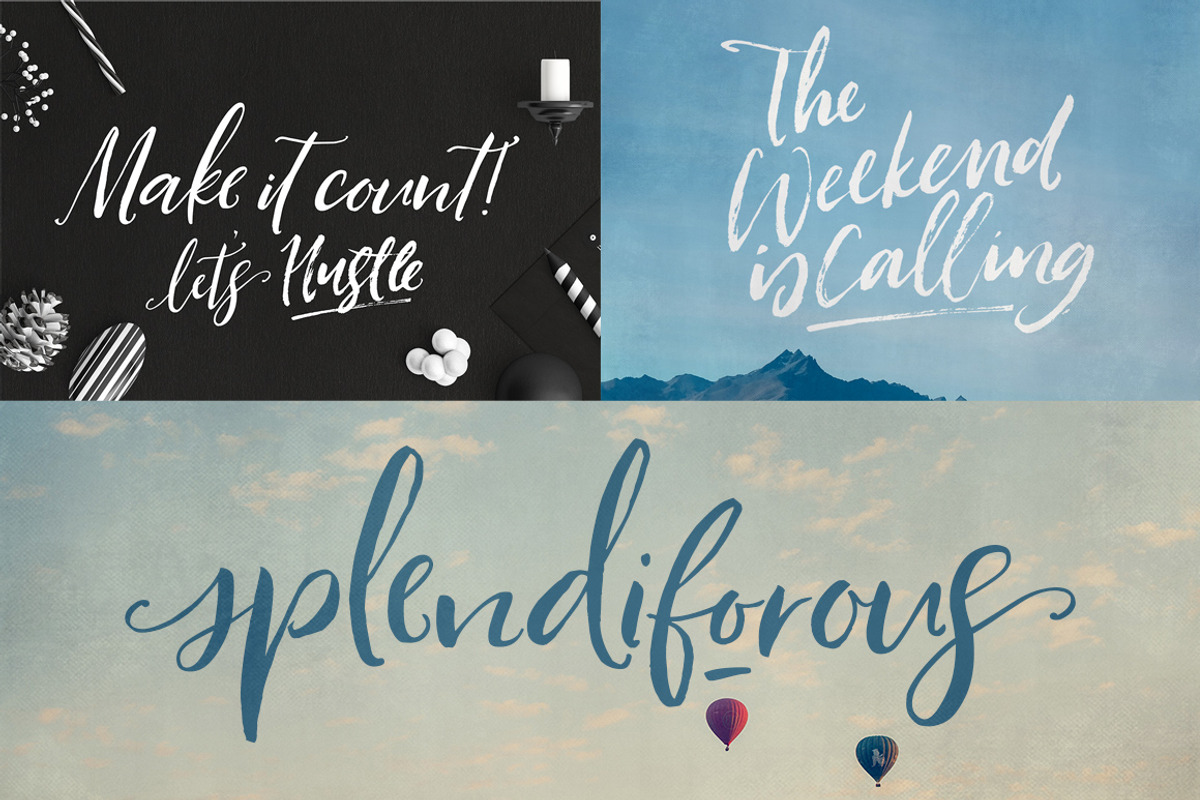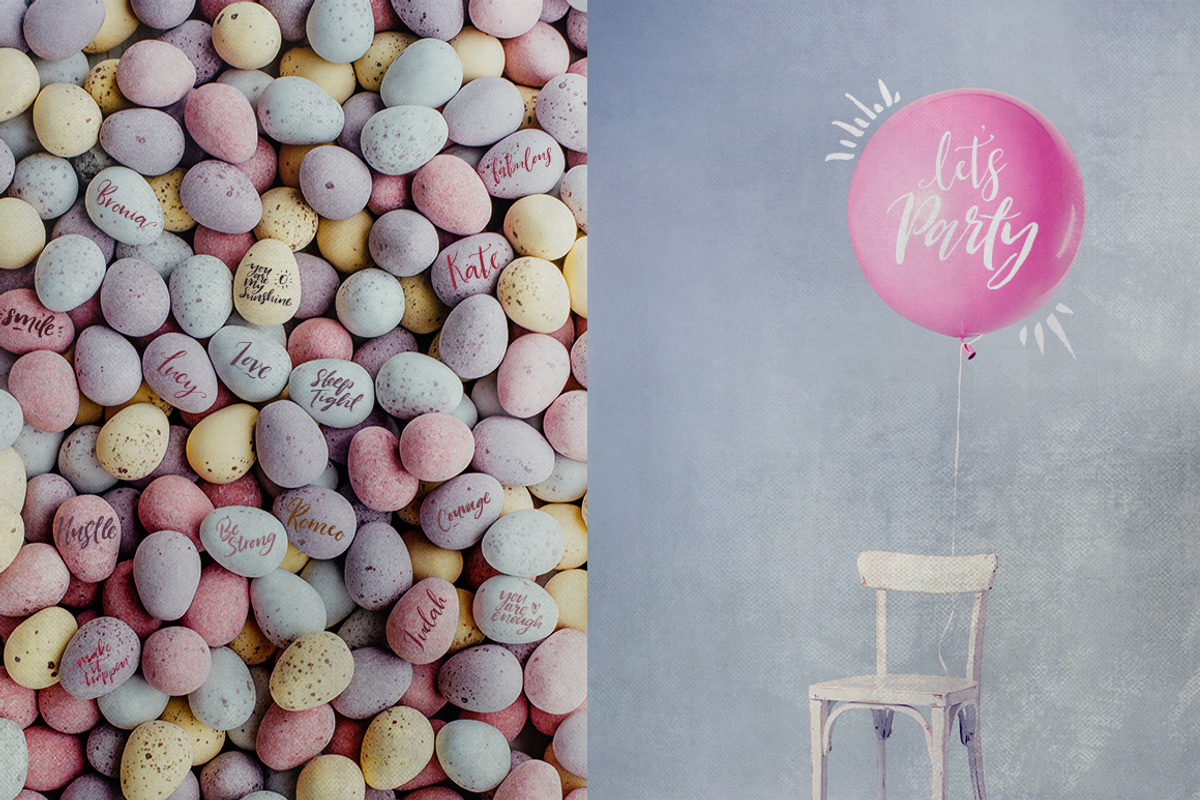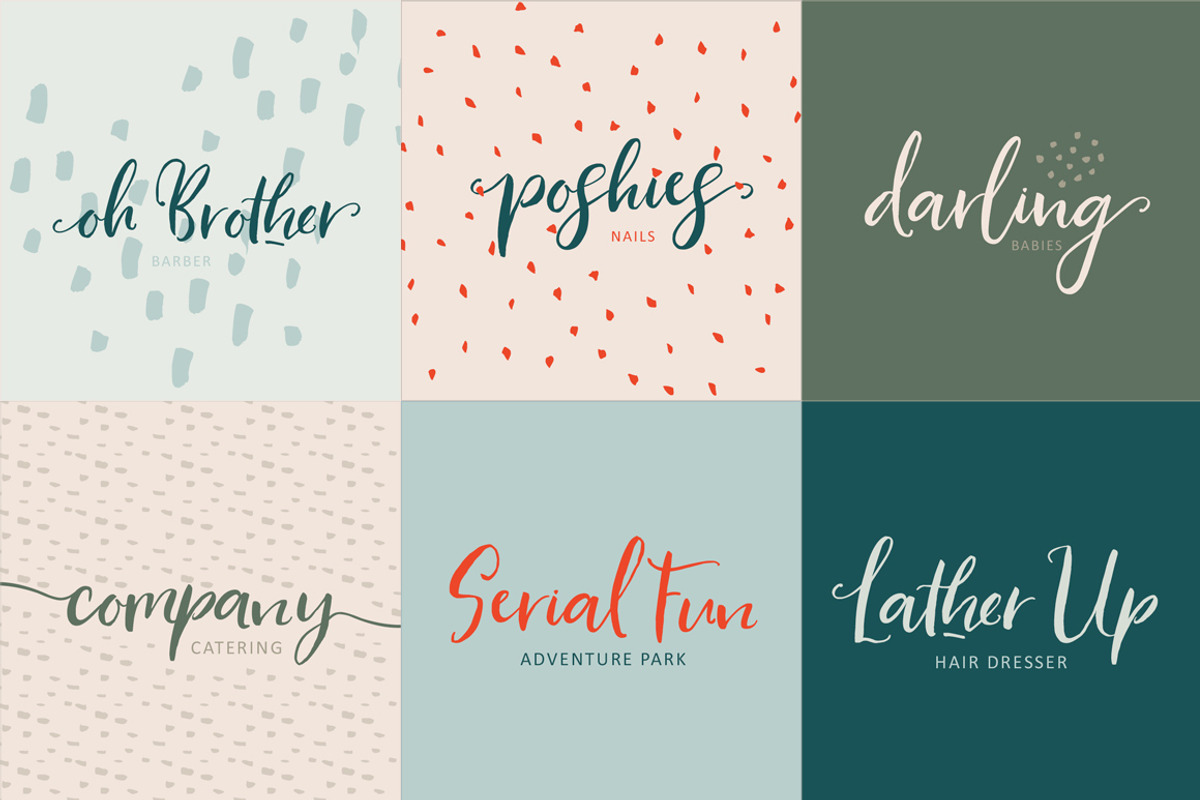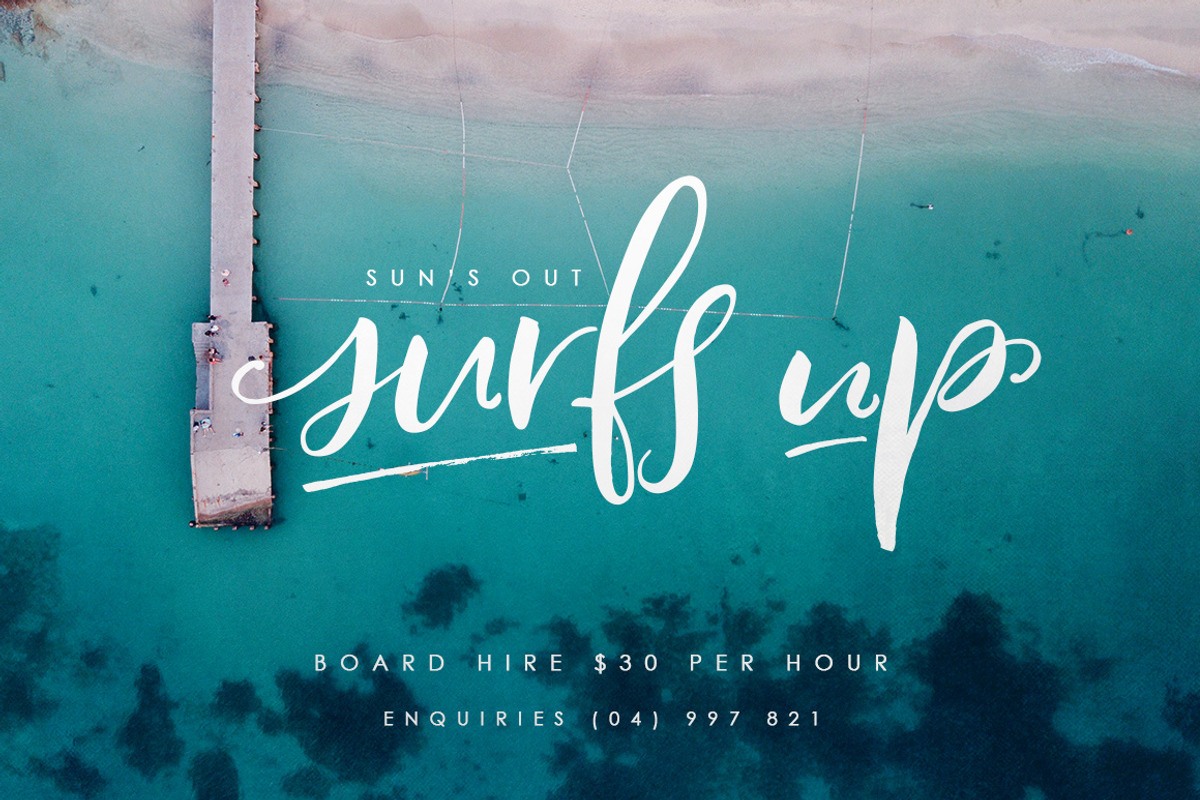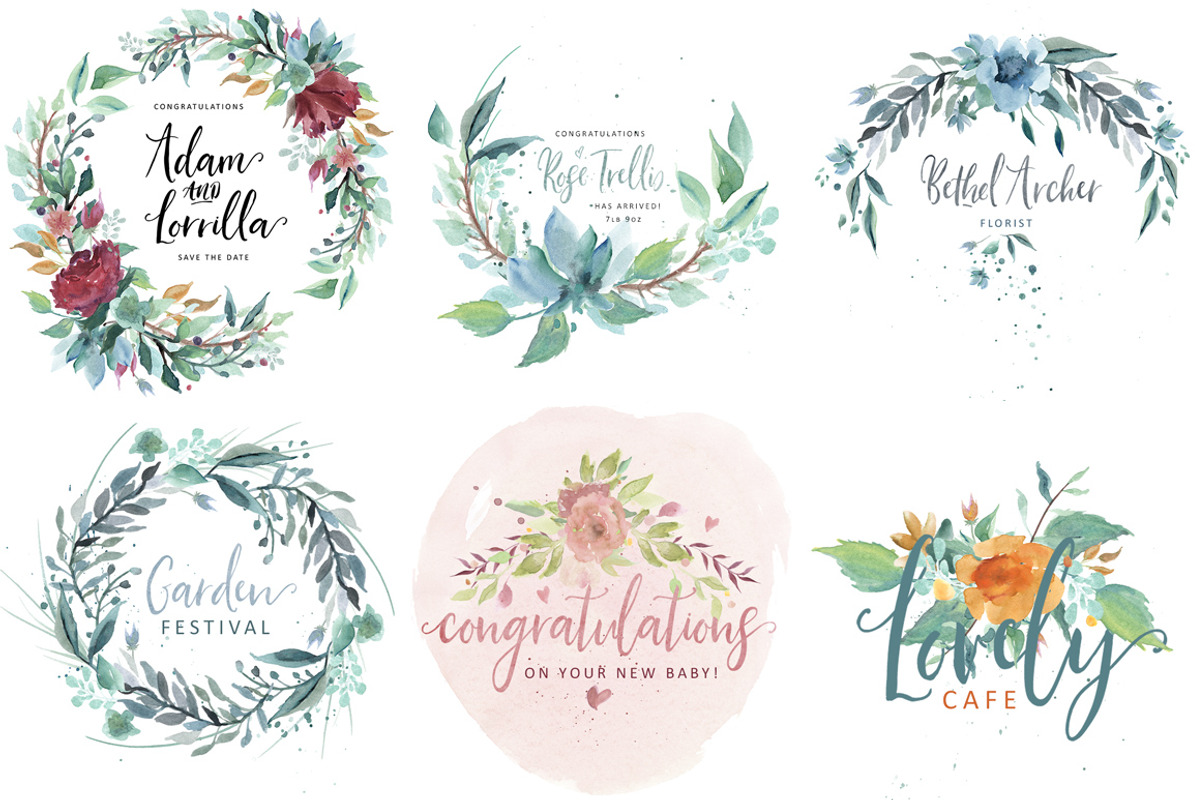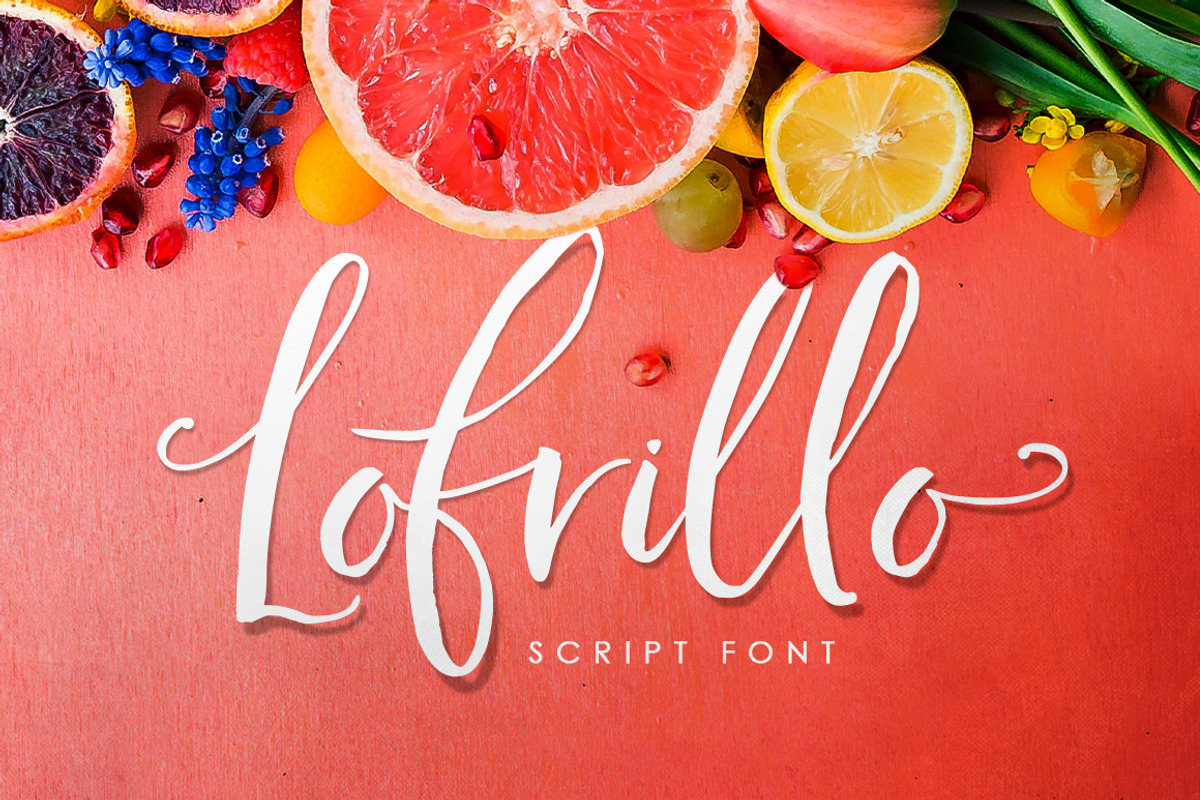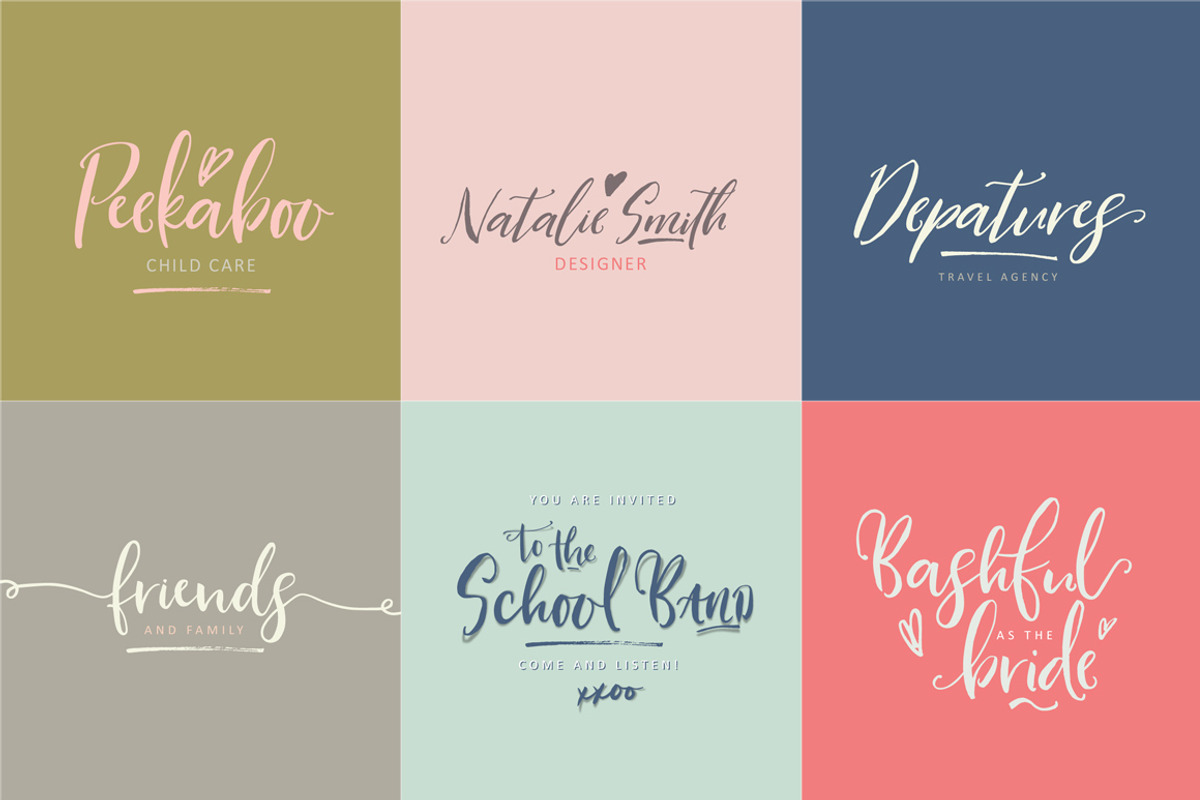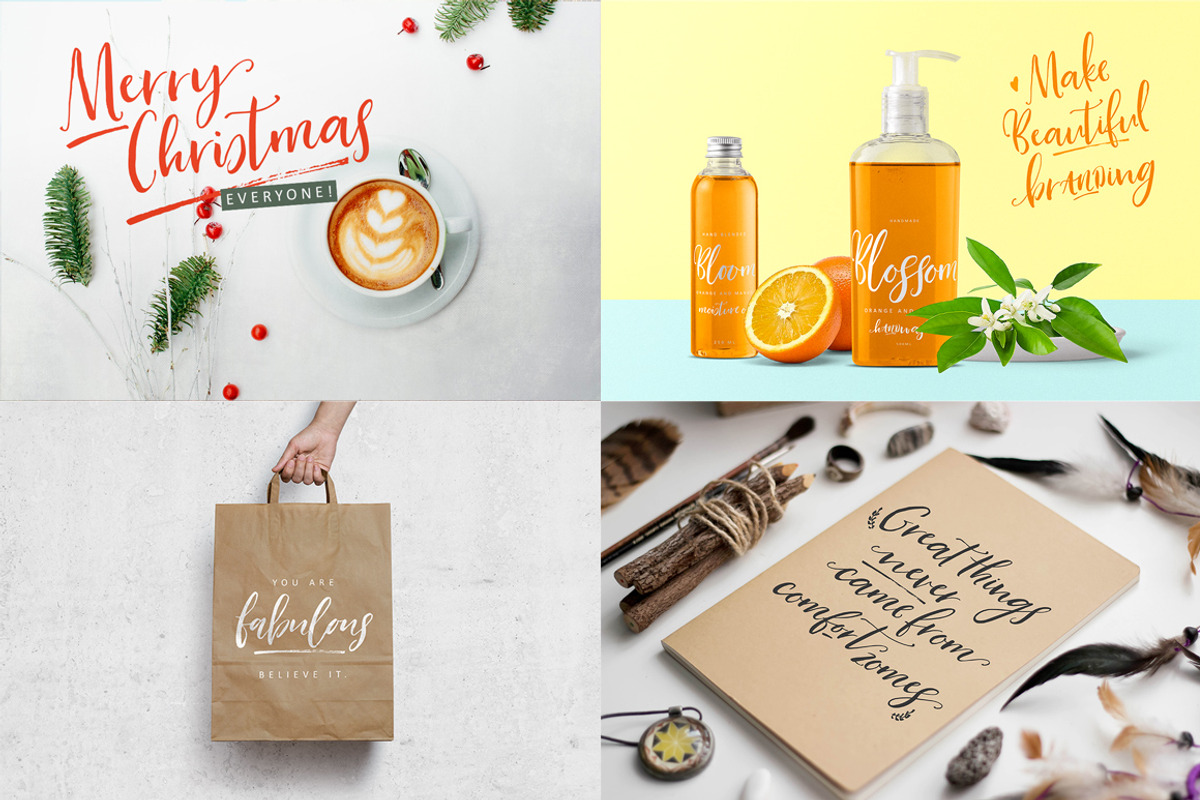
Lofrillo Script Font
NEW Introducing Lofrillo modern calligraphy scrip font!
Tall with a happy bounce and loads of character,Lofrillois the perfect font for branding, invites, logos, quotes, posters, packaging, and so much more!
Lofrillo comes in Regular, Bold, Upright, Slant, and Alternates and Extras.
The extras are super cool brush pen quotes and words, plus dashes, slashes and bursts! So much fun! 😊
There are 5 sets of lowercase letters, and all can be accessed using a number after a letter - so a1, a2, a3, a4 or a5. You must have Contextual Alternates activated in your program for this to work (using OpenType)
Lofrillo supports international languages.
Lofrillo Script Font by Creativeqube Design fits naturally into Branding, posters, packaging, typography.